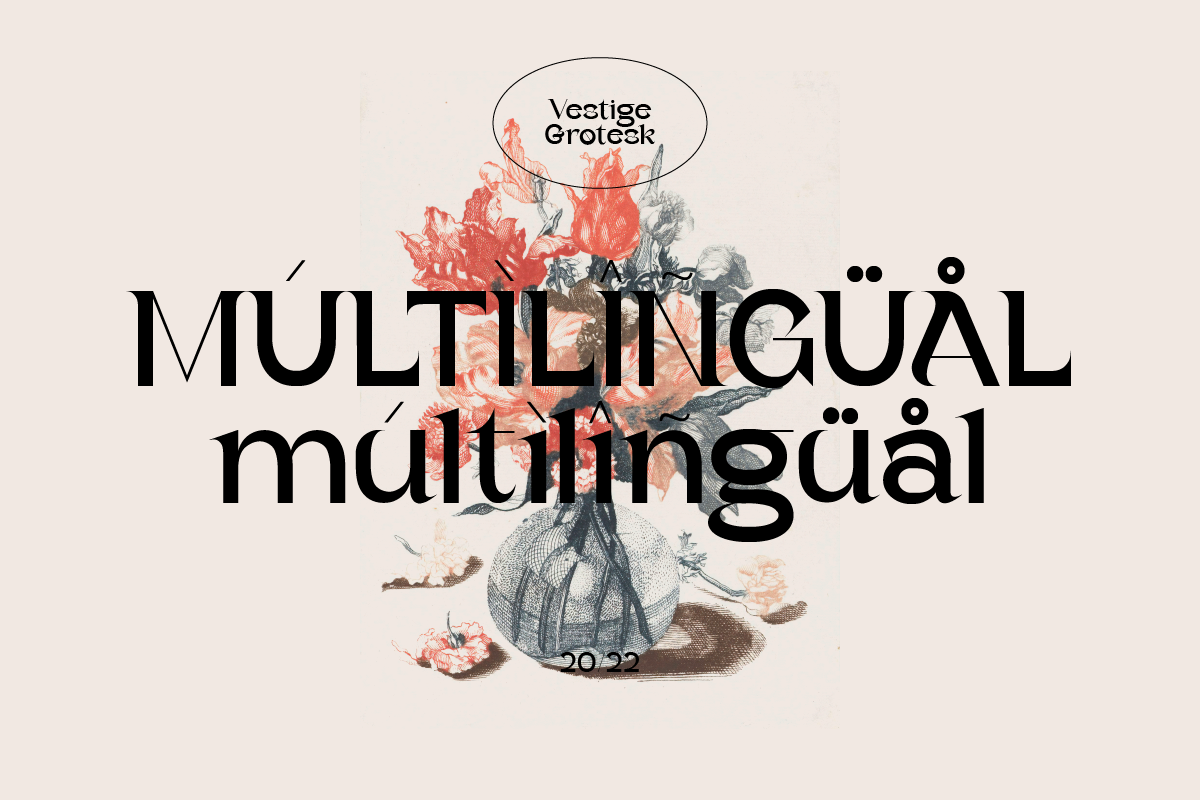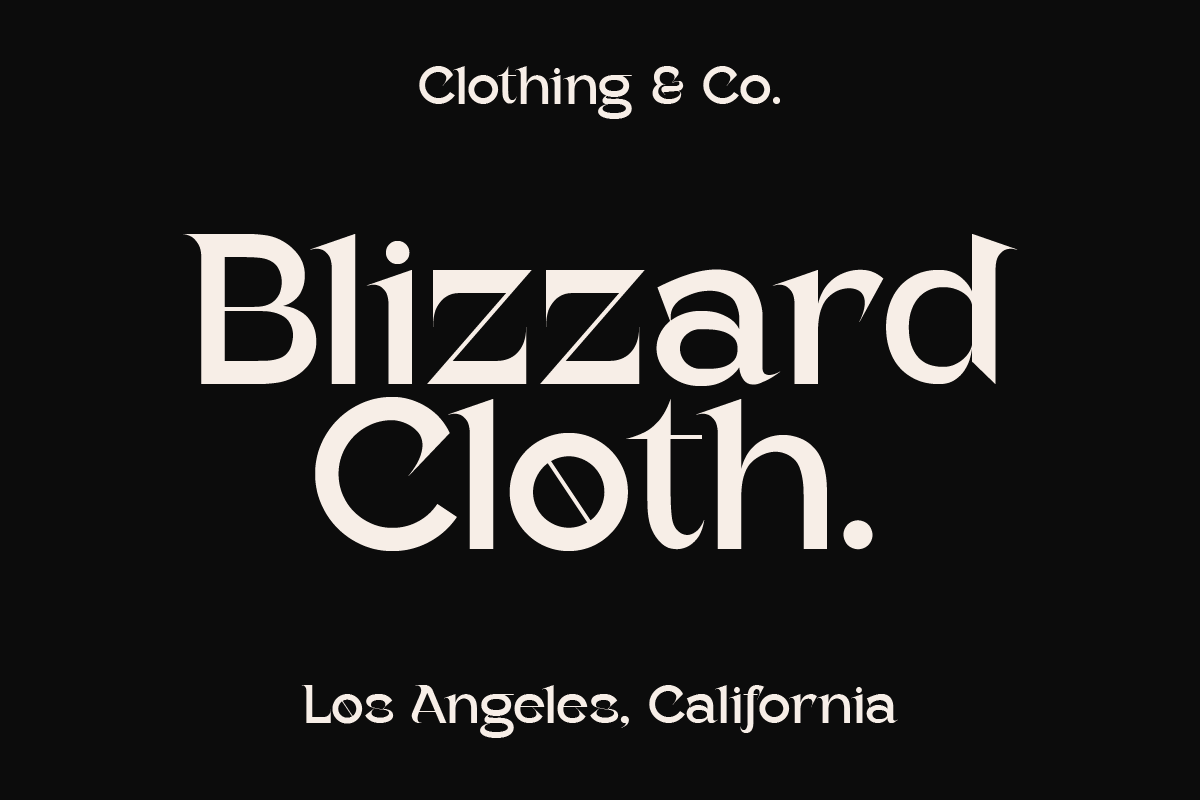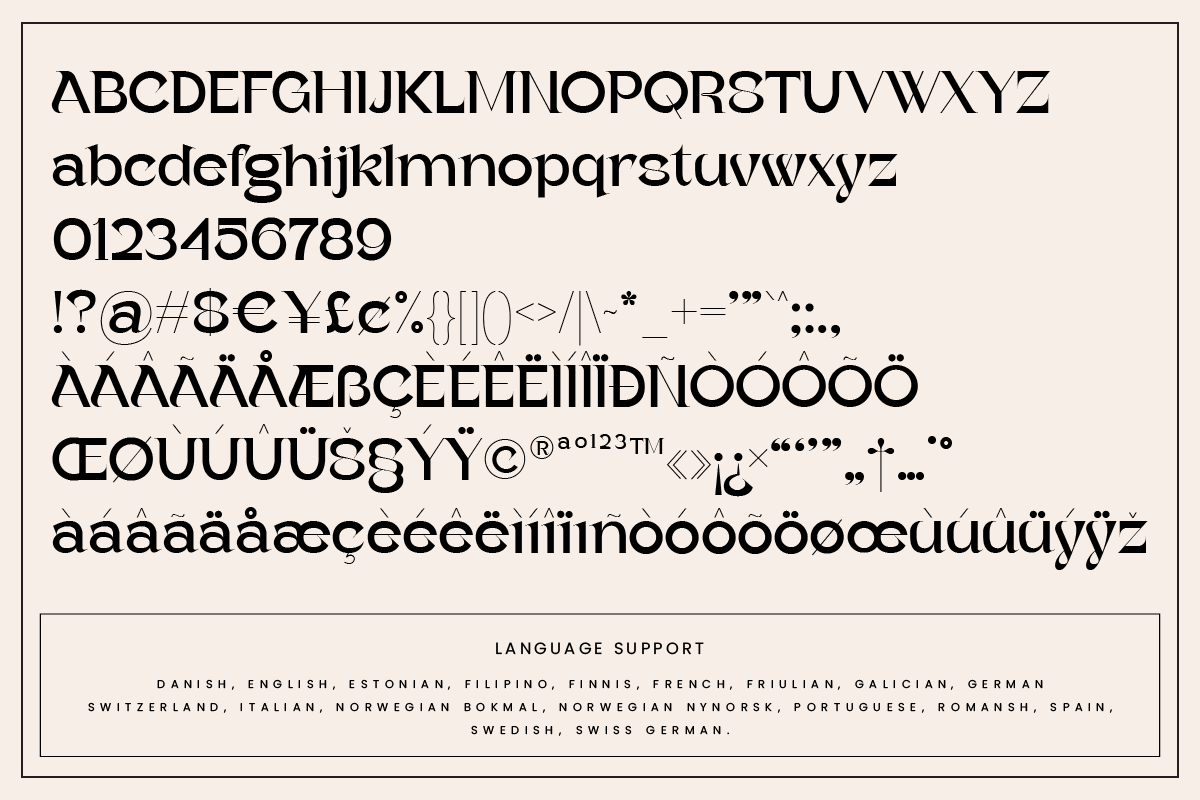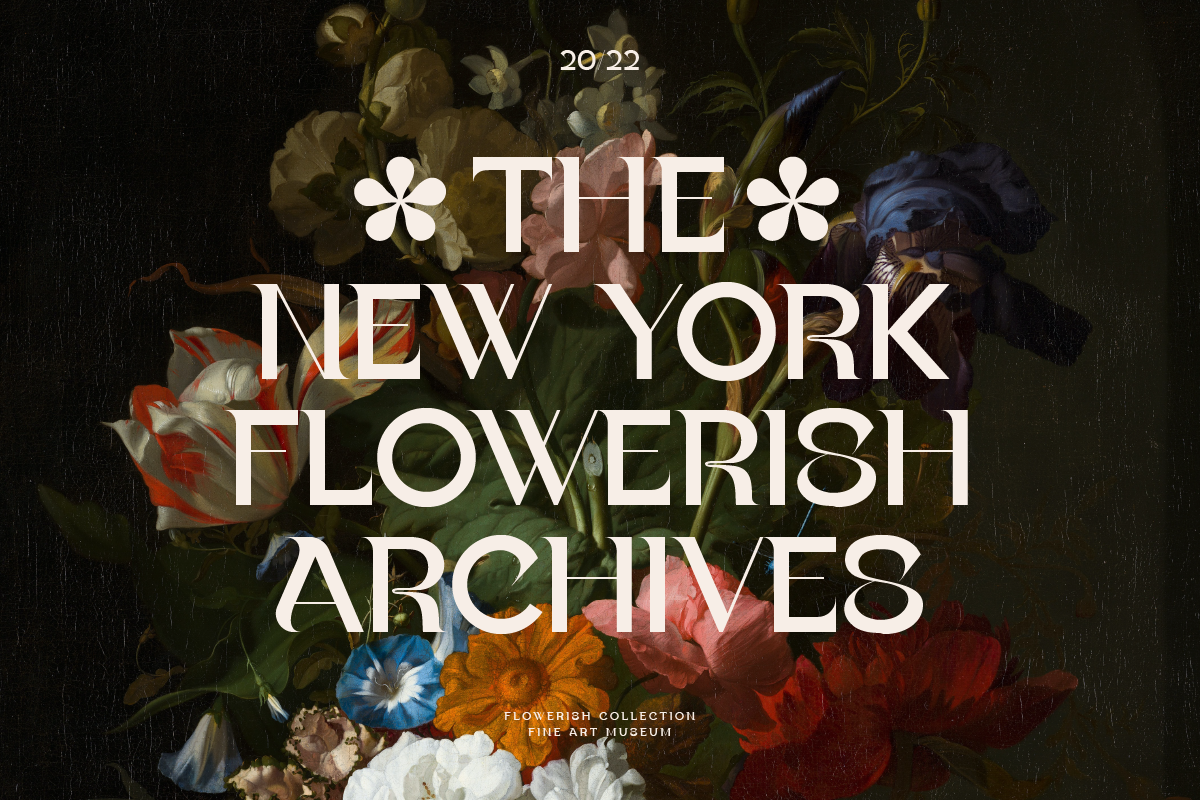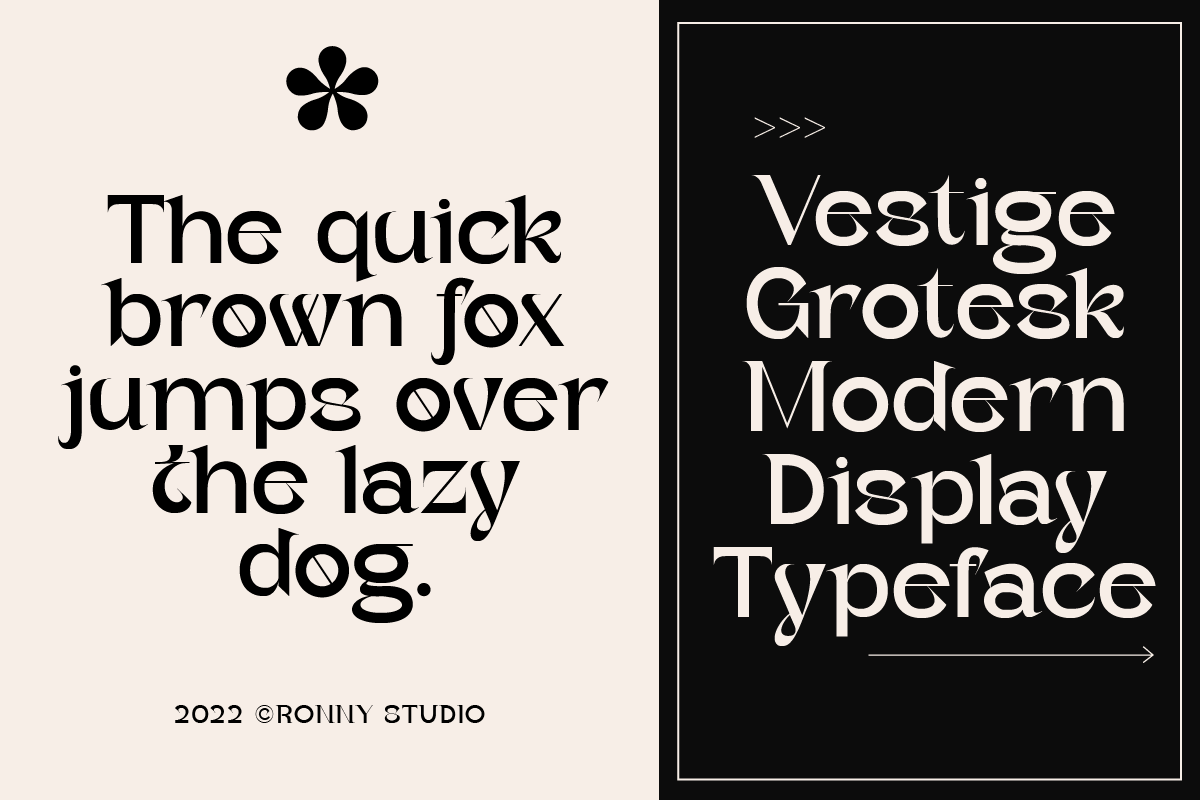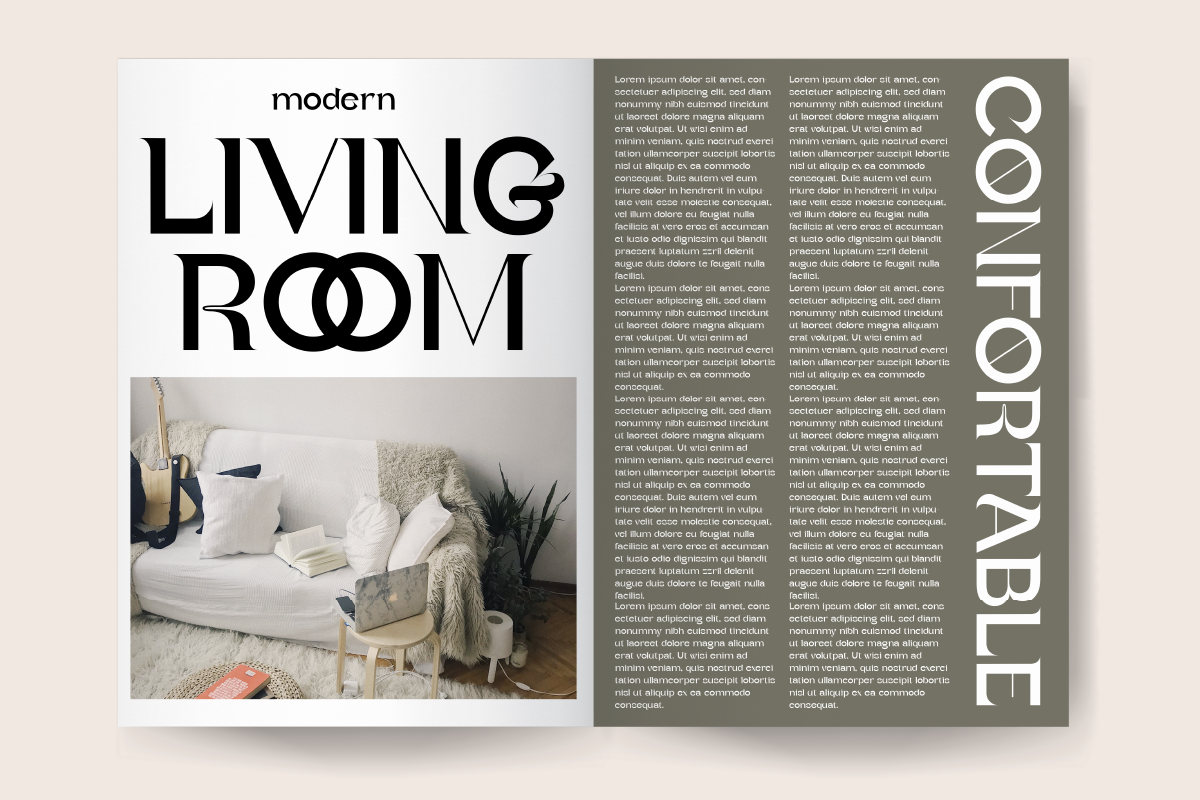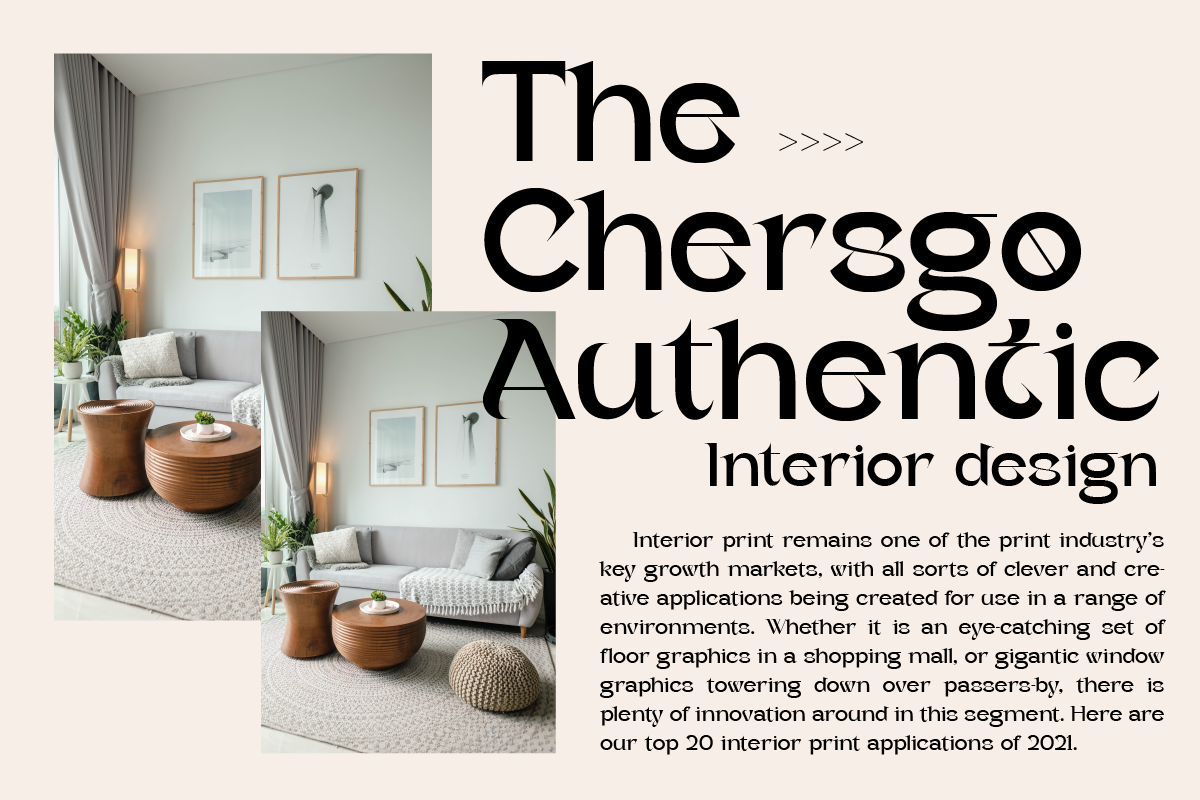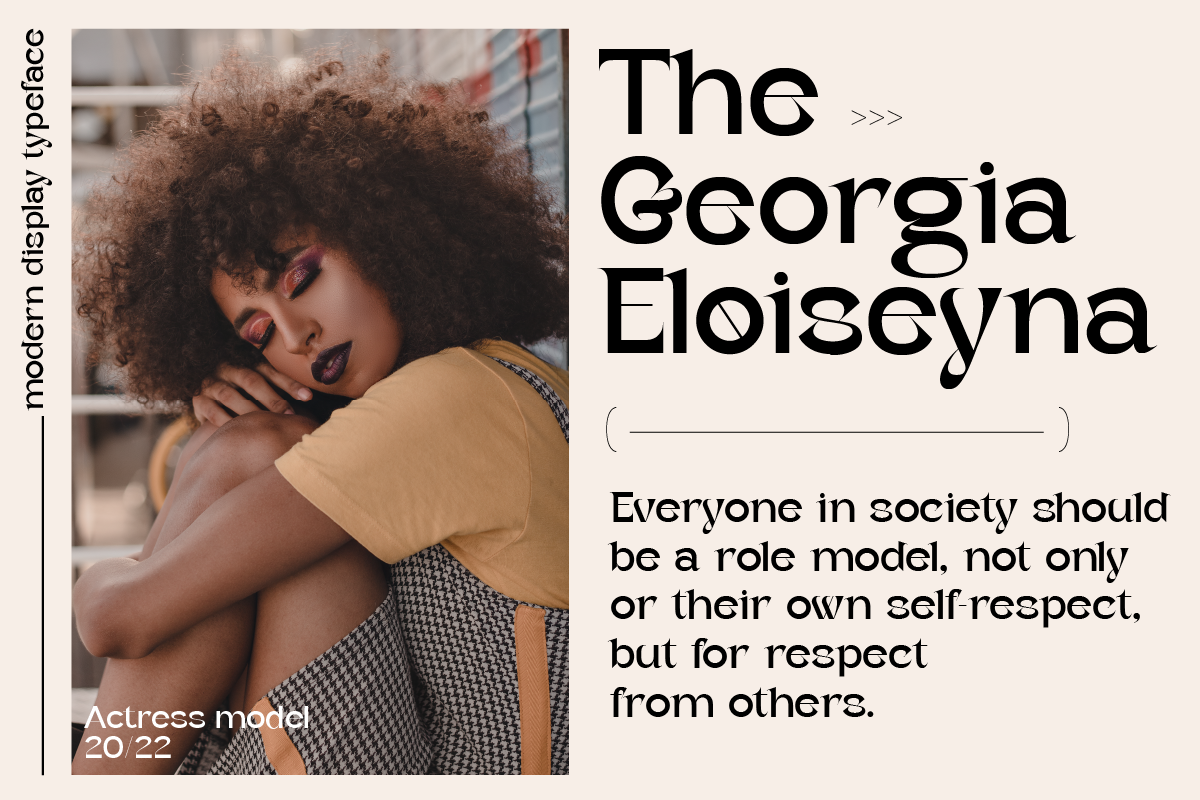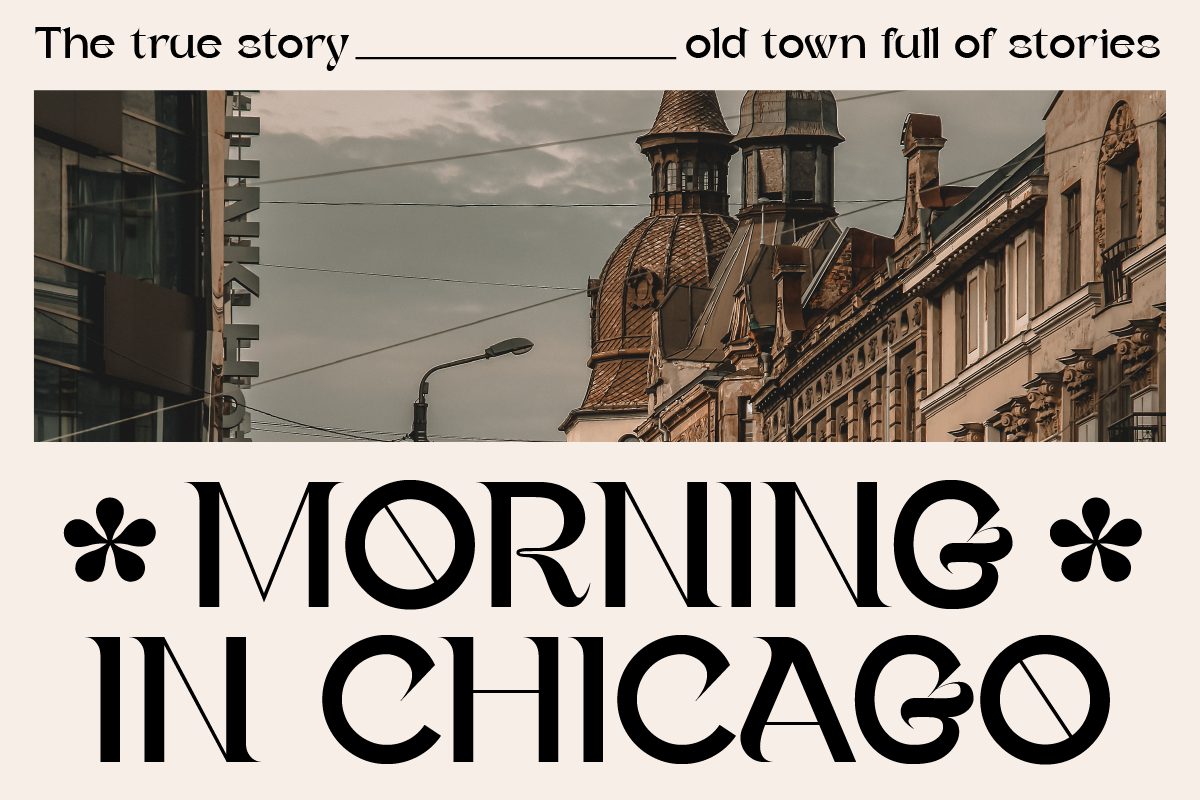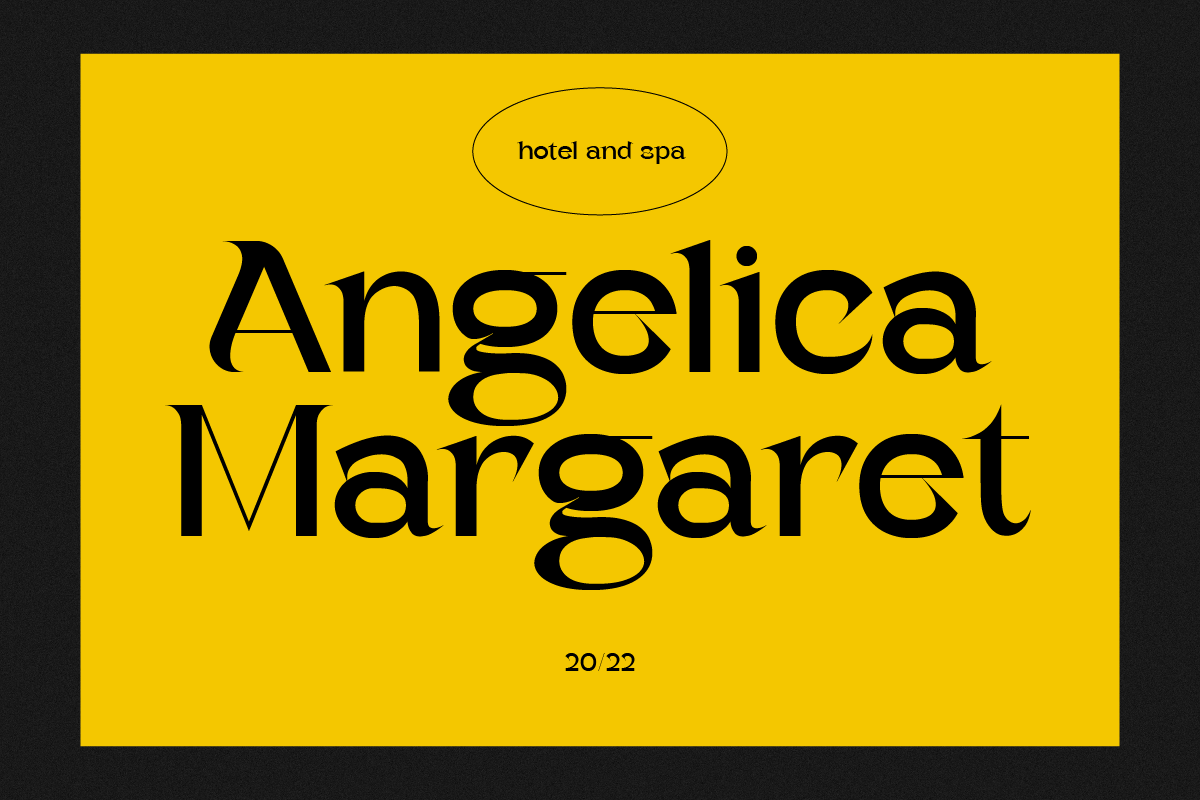
Vestige Grotesk Modern Typeface
Vestige grotesk is an Modern Serif Display typeface font. This font is impressive and features a clean and elegant font, professionally shaped, and as a result, it will easily match a variety of creations that require a different touch. Add it with confidence to your projects, and you'll love the results. This typeface is perfect for elegant logos, branding, travel promotions, layout magazines, beauty products, product packaging, quotes, or simply as a stylish text overlay onto any background image.
- Lowercase & Uppercase
- alternates